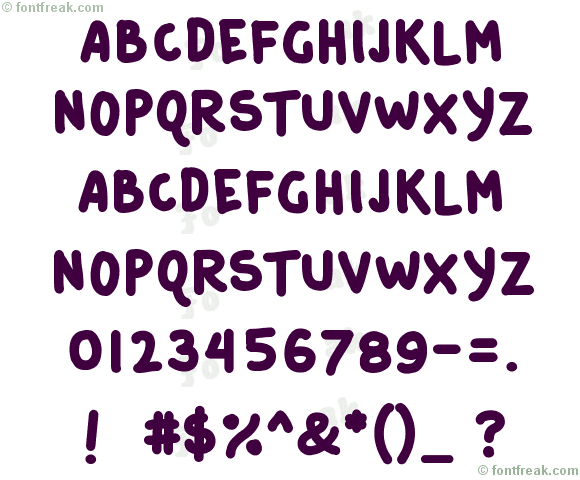
Catatan Perjalanan
About Catatan Perjalanan
The Catatan Perjalanan font by Adien Gunarta is a charming handwritten style that exudes a playful and informal aesthetic. This display font features rounded, soft strokes that create a friendly and approachable feel. Its moderate stroke weight and consistent spacing contribute to its legibility, while the whimsical character forms add a unique touch that sets it apart from more traditional fonts. The playful nature of the Catatan Perjalanan font makes it particularly suitable for creative projects where a personal touch is desired.
This font can be effectively used in various contexts. For instance, it’s an excellent choice for wedding invitations, where its casual elegance can enhance the romantic atmosphere. Additionally, it works well for travel blogs or journals, as it captures the essence of exploration and adventure, making it ideal for headers or quotes. Restaurant menus can also benefit from the Catatan Perjalanan font, especially in cafes or eateries that aim for a cozy, welcoming vibe. Furthermore, small business owners looking to create engaging social media graphics will find this font a perfect fit for promotional materials that require a touch of warmth and personality.
The target audience for the Catatan Perjalanan font includes graphic designers, small business owners, and content creators who are looking to infuse their projects with a sense of creativity and individuality. Its versatility and friendly appearance make it an appealing choice for anyone aiming to connect with their audience on a personal level.
The Catatan Perjalanan font stands out not only for its distinctive visual style but also for its ability to convey emotion and personality. With its free download option, it offers an accessible way for designers and creators to enhance their work with a touch of charm and whimsy.